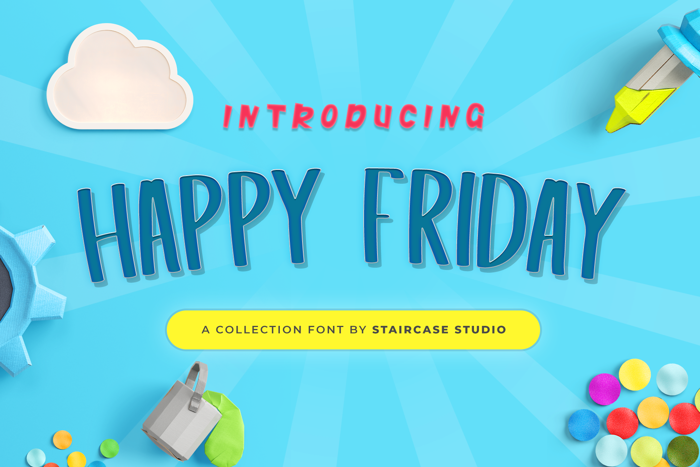
Happy Friday Font
Happy Friday font with new and modern styles. A collection of letters and numbers suitable your projects also great for Logotype, Branding Design, Logo Design, Digital Lettering Arts, T-Shirt/Apparel, Poster, Magazine, Signs, Advertising Design, and any design needs.